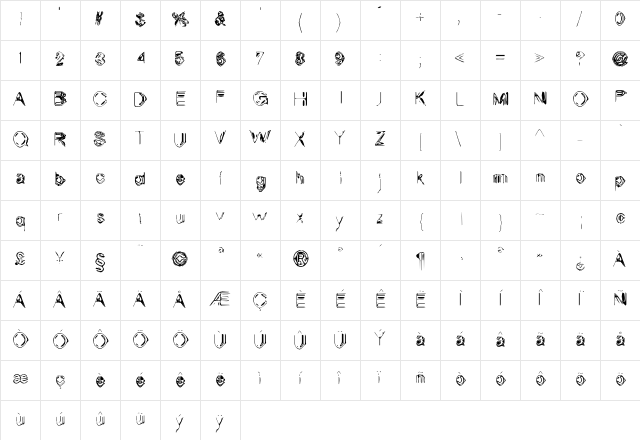
Amphora Regular
Design Context for Amphora Typeface
Amphora is a composed and adaptable typeface that performs quietly and consistently across a wide range of design contexts.
Pro Tip: Pair Amphora with a font of contrasting weight or personality to build a more expressive typographic hierarchy.